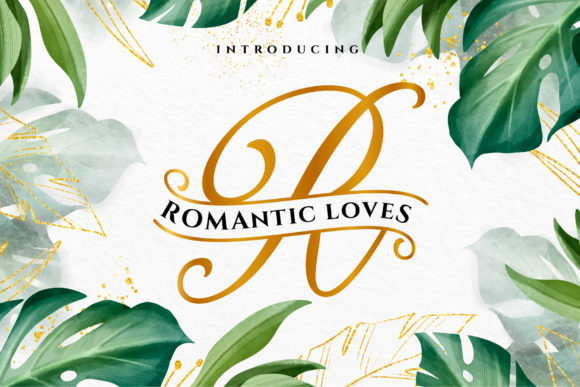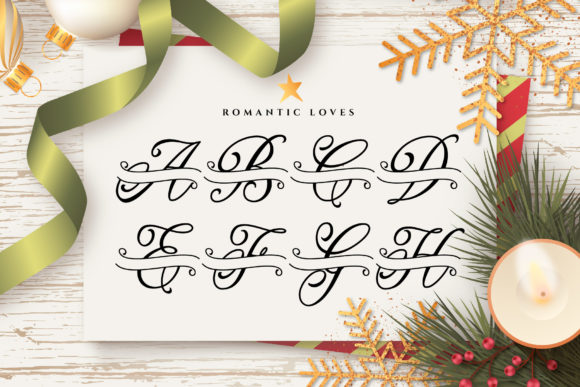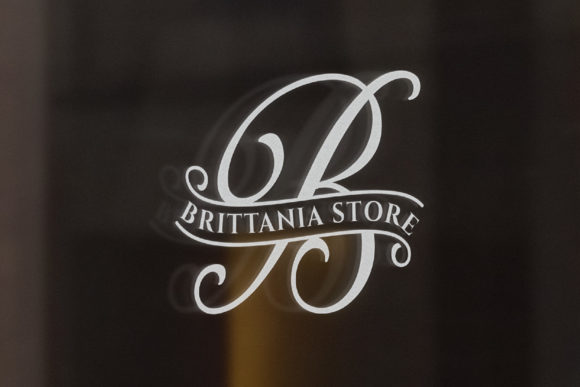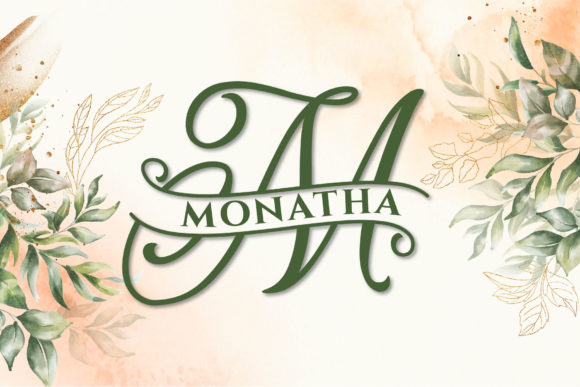
Romantic Loves Monogram Font
Romantic Loves Monogram is a delicate and elegant handwritten font. Fall in love with its authentic feel and use it to create gorgeous wedding invitations, beautiful stationary art, eye-catching social media posts, and cute greeting cards.